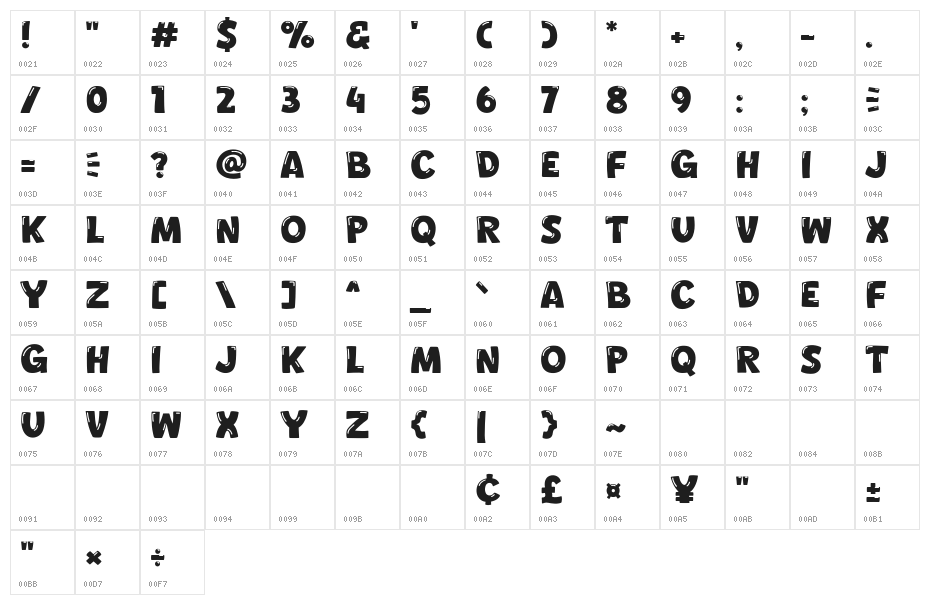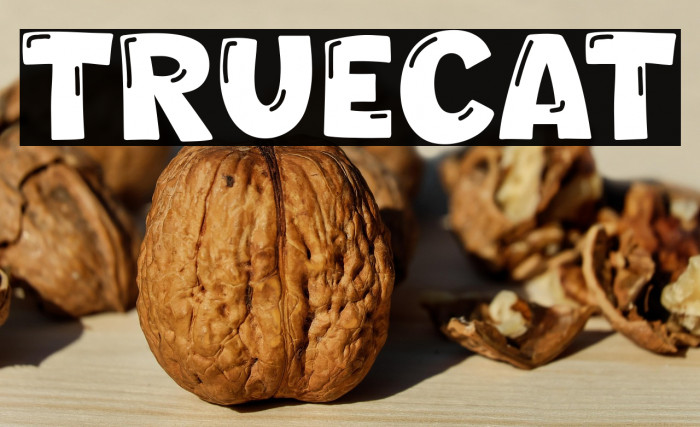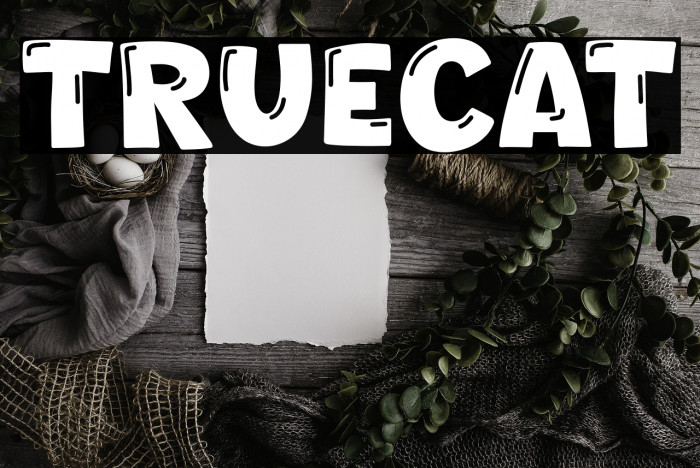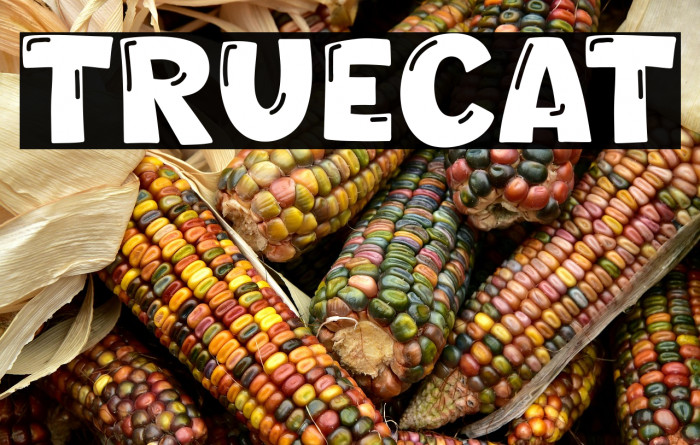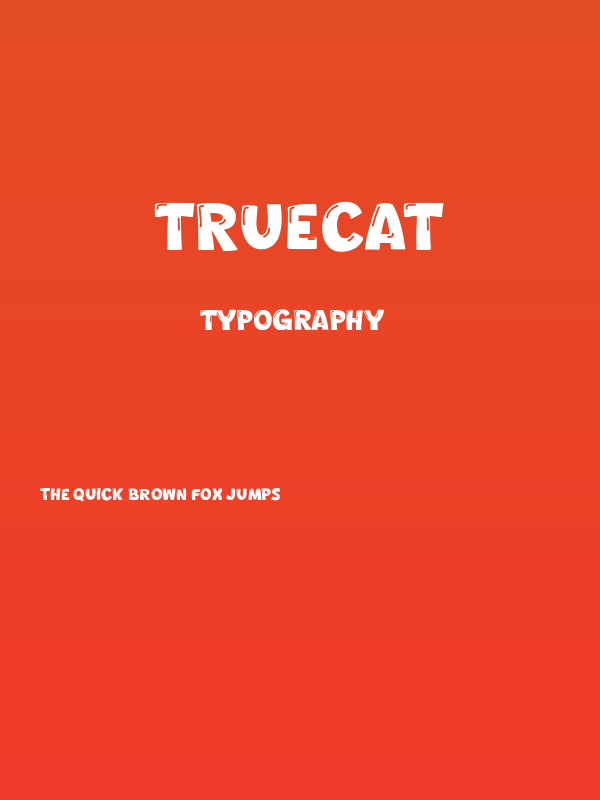
Truecat Font
Truecat Description
This font features a playful and bold style, characterized by thick, rounded strokes and a slightly uneven baseline, giving it a hand-drawn appearance. The letters are chunky and have a cartoonish quality, making them stand out with a fun and lively vibe. The uppercase and lowercase letters maintain a consistent weight, while the numbers and special characters follow the same whimsical design. The overall look is informal and energetic, suitable for projects that require a touch of humor and creativity.
| Overall Style | Playful, Cartoonish, Hand-drawn |
| Proposed Projects | Ideal for children's books, comic strips, playful branding, and party invitations. |